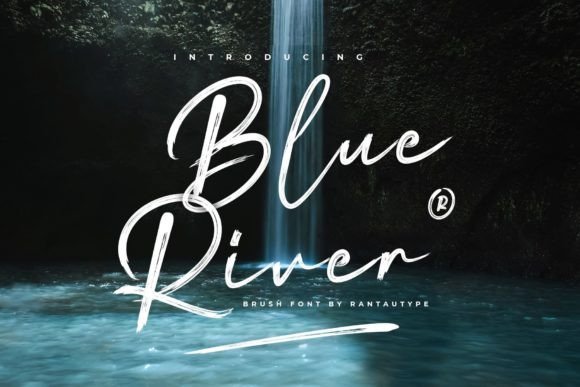
The Perfect Font for Making a Splash: Blue River Font
Have you ever been brainstorming a design concept, staring at a blank page, and suddenly a spark of inspiration hits you? That’s exactly what happened to me when I discovered the Blue River Font. Its elegant brush strokes and confident flair instantly captured my attention and sparked a flurry of creative ideas.
The Blue River Font is a stylish brush script font that exudes modern elegance, making it a perfect fit for logo design, branding, and packaging. With its versatile ligatures and swashes, this font offers endless possibilities for designers to get creative and make a lasting impression. Whether you’re looking to add a touch of sophistication or capture attention, the Blue River Font is a valuable tool in any designer’s arsenal.
Blue River Font Key Features
- Font Family: Blue River Font comes in two font families – Blue River and Blue River Pro, each offering a unique set of characteristics.
- Unique Characteristics: Blue River Font features a unique blend of modern and vintage elements, with subtle texture and watercolor effects, giving it a distinctive look.
Designer Review: Blue River Font
As a designer, I’ve had the chance to work with the Blue River Font, and I must say it’s been a mixed bag for me. ✨ One thing that works well is its unique blend of modern and classic elements, which gives it a timeless feel that’s hard to replicate. The font’s subtle curves and smooth lines make it perfect for corporate branding, publishing, and even digital products.
- ✨ Unique blend of modern and classic elements
- ✨ Timeless feel that’s perfect for various design applications
- ✨ Smooth lines and subtle curves make it visually appealing
However, there are some limitations to consider. ⚠️ The font’s letter spacing can be a bit inconsistent, which may affect readability, especially at smaller font sizes. Additionally, the font’s lack of bold weights and italics may limit its versatility in certain design contexts.
- ⚠️ Inconsistent letter spacing can affect readability
- ⚠️ Limited bold weights and italics may restrict design options
Overall, I’d say the Blue River Font is a solid choice for designers looking for a unique and timeless feel. While it may not be perfect, its strengths outweigh its limitations, making it a worthwhile addition to any designer’s toolkit.
For the most effective use of the Blue River font, use it for titles, headings, and short paragraphs. It works well for modern and minimalist designs. Experiment with different font sizes and colors to create visual interest.
Alternative Fonts to Blue River
Playfair Display is an elegant and luxurious serif font. It is ideal for use in high-end branding, magazine covers, and wedding invitations. This font is more ornate and luxurious than Blue River, making it perfect for special occasions.
Comparison: While Blue River is a clean and modern font, Playfair Display is more traditional and ornate, with a touch of luxury. It is better suited for formal events and high-end branding.
Montserrat is a modern sans-serif font with a strong geometric feel. It is perfect for use in urban, tech, or startup branding, as well as in digital interfaces and websites. Montserrat is more geometric and modern than Blue River, making it ideal for modern and tech-related designs.
Comparison: While Blue River is a clean and simple font, Montserrat is more geometric and modern, with a strong urban feel. It is better suited for modern and tech-related designs, while Blue River is more versatile and can be used in a variety of contexts.
What is the font size range for the Blue River Font?
The Blue River Font is designed to be highly legible across a wide range of font sizes, from 8pt to 72pt. However, optimal readability is achieved at font sizes between 12pt and 24pt. For larger font sizes, the font remains clear and readable, while smaller font sizes may require some adjustments to ensure optimal legibility.